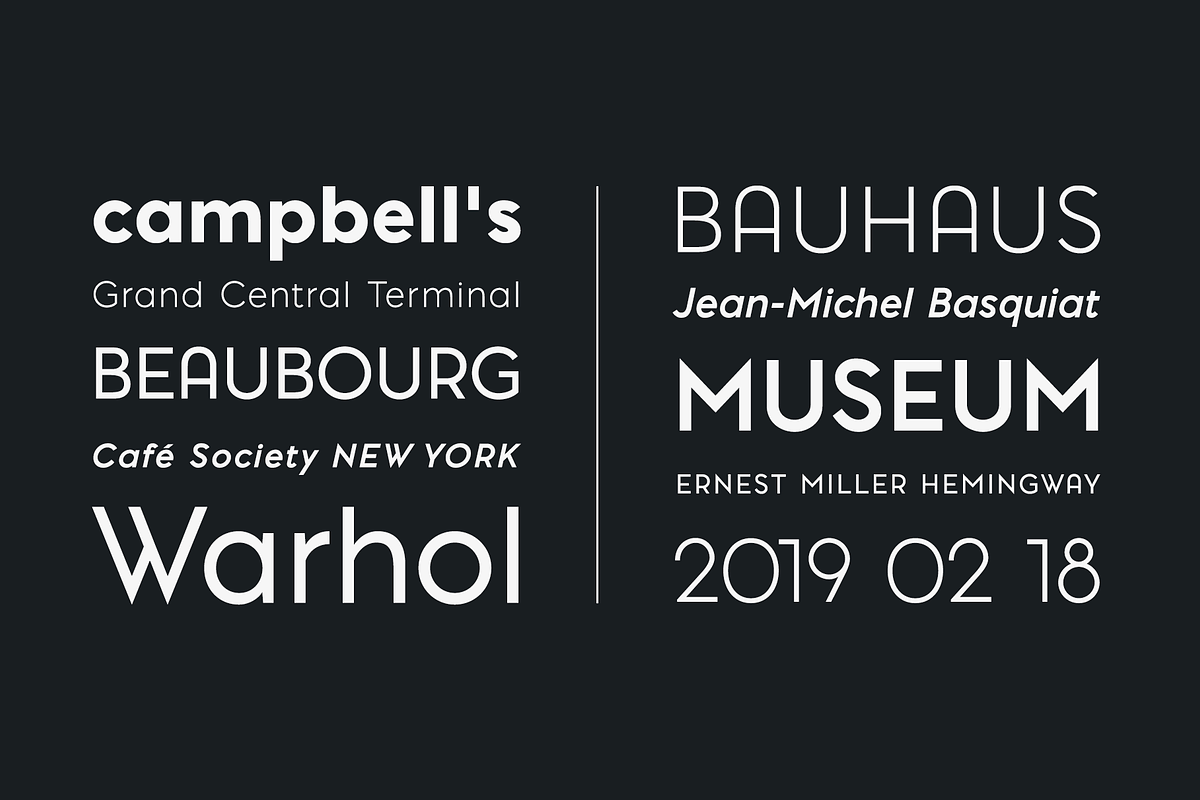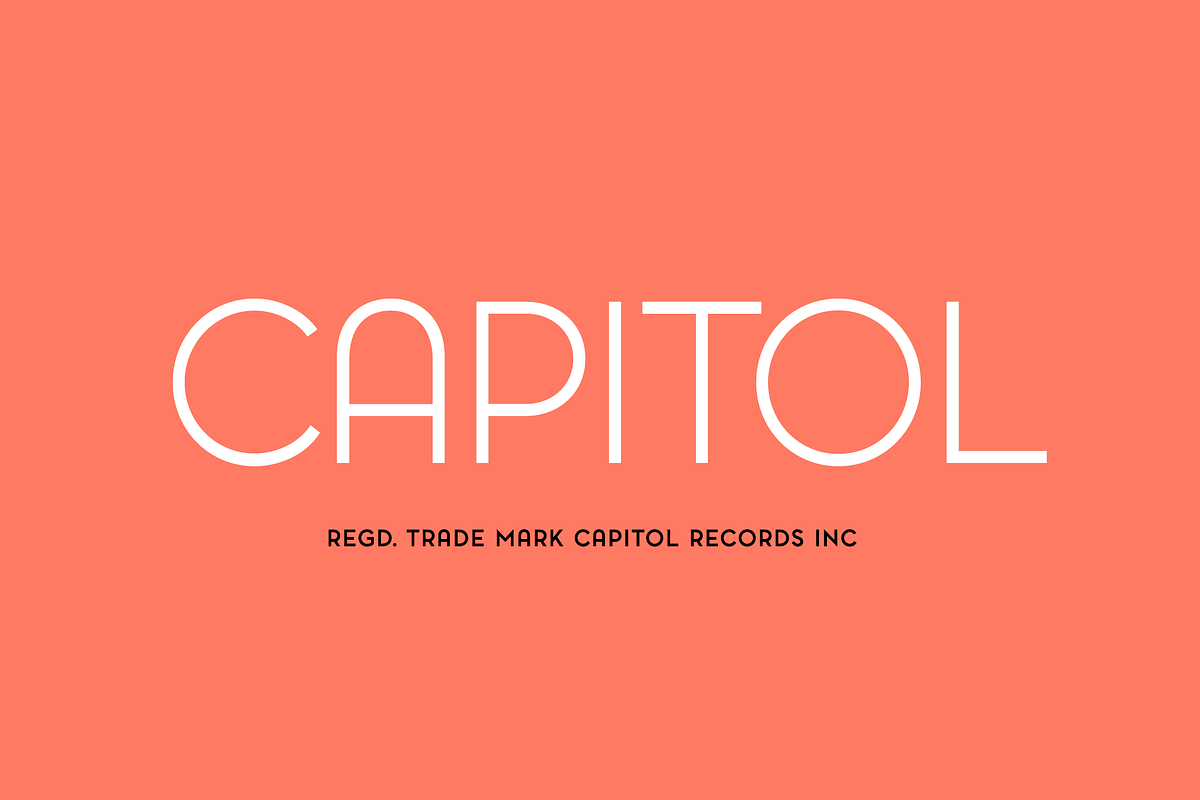
Pontiac Font Collection (Full set)
Pontiac Font Collection (Full set) by S&C Type is a font selected for branding, posters, packaging, typography.
Why Pontiac Font Collection (Full set) is worth a look
Pontiac Font Collection (Full set) by S&C Type fits naturally into Branding, posters, packaging, typography.